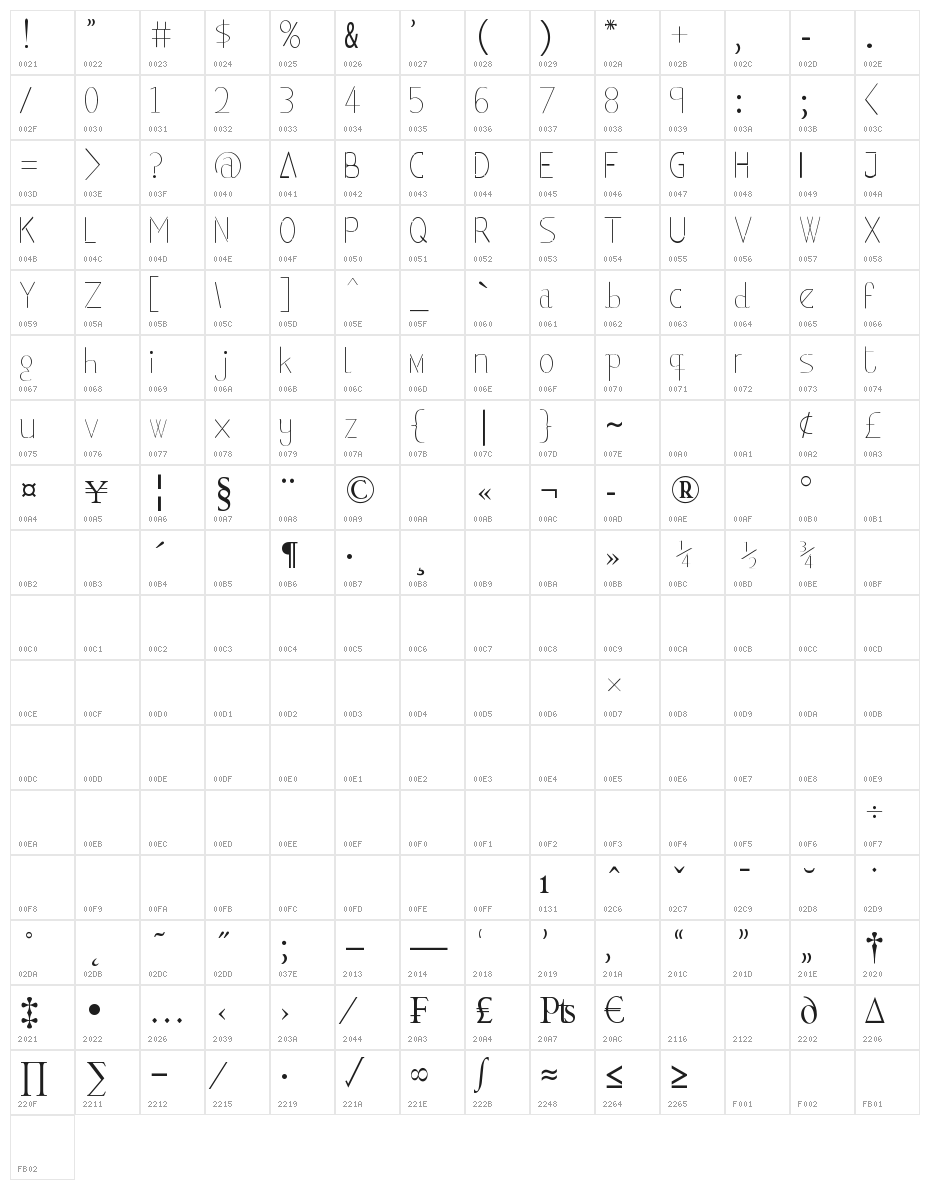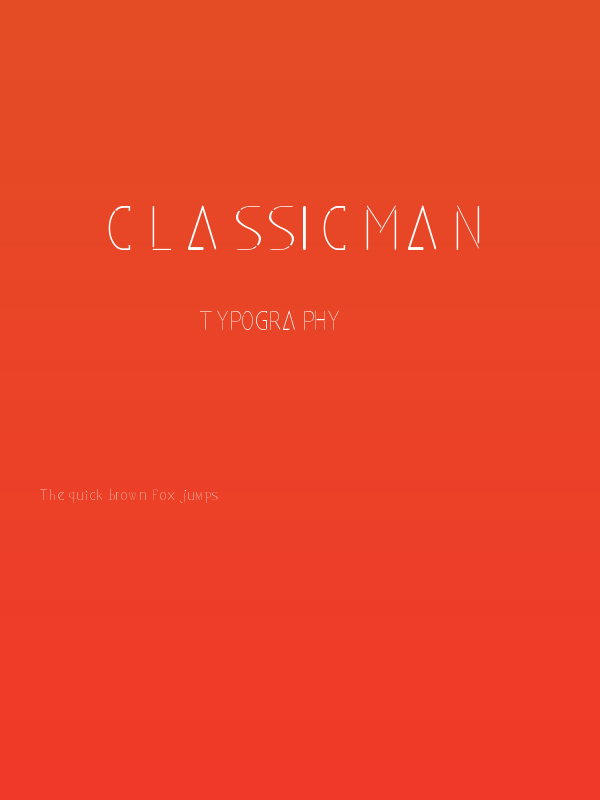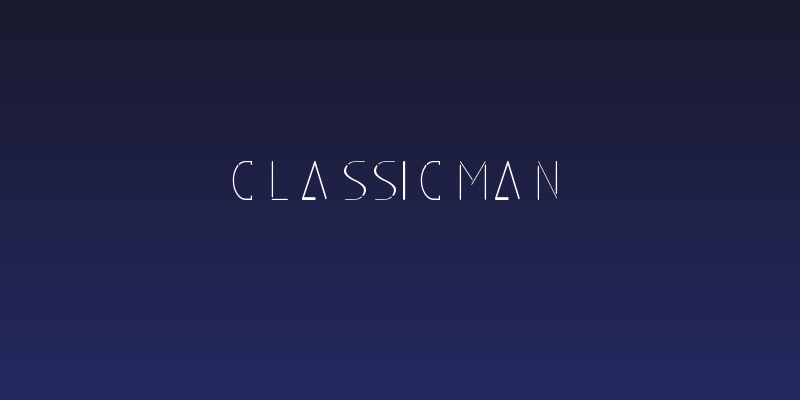
classicman Font
classicman Description
This font features a modern and minimalist design with a geometric structure. The characters are composed of thin, clean lines with a consistent stroke width, giving it a sleek and contemporary appearance. The uppercase letters are angular and sharp, while the lowercase letters maintain a similar geometric style with slightly softer curves. The numerals are distinct and align well with the overall aesthetic, providing a cohesive look. Special characters are designed to match the clean and modern feel, making this font versatile for various design applications.
| Proposed Projects | Ideal for modern branding, tech-related projects, minimalist posters, and clean web design. |